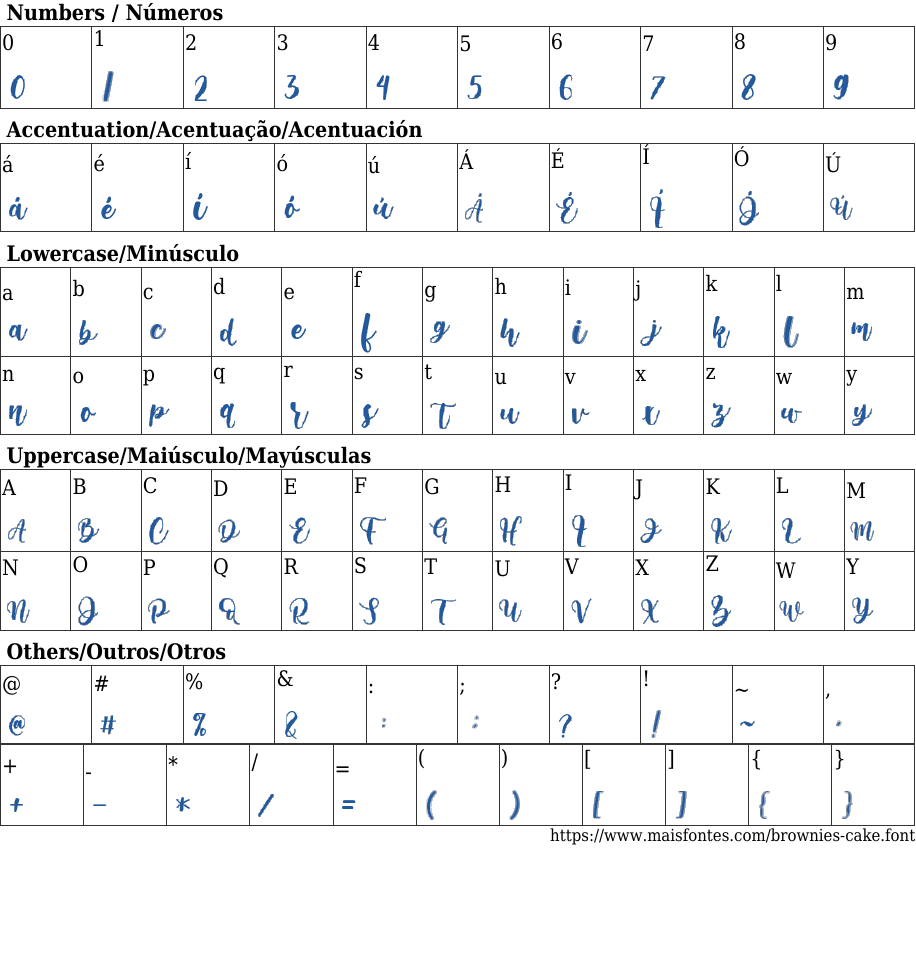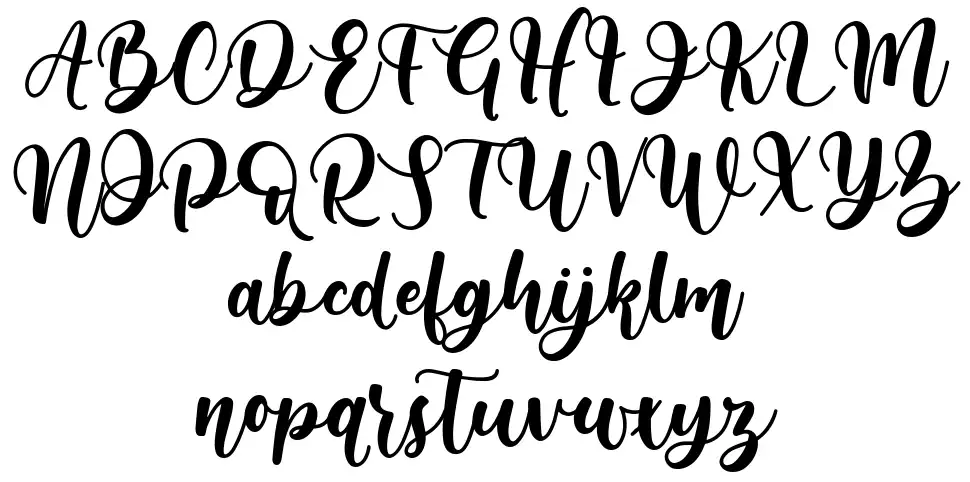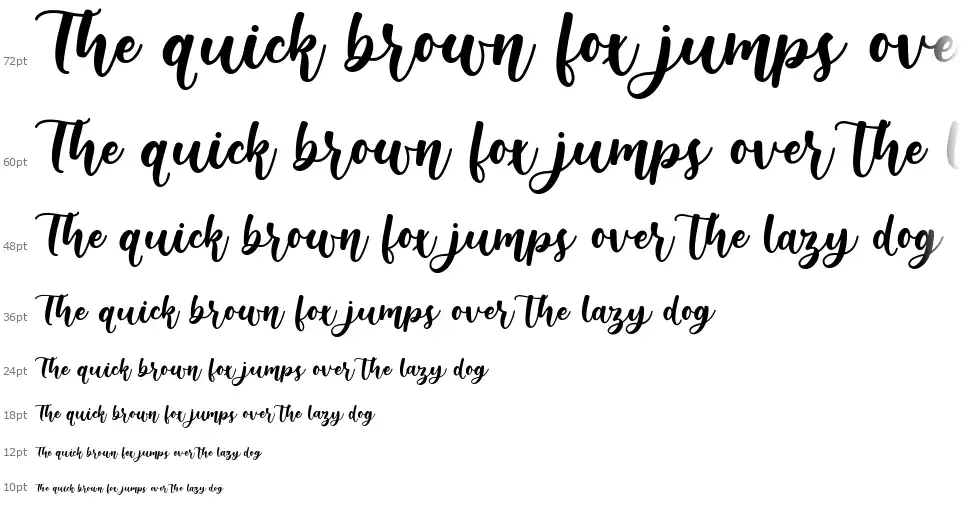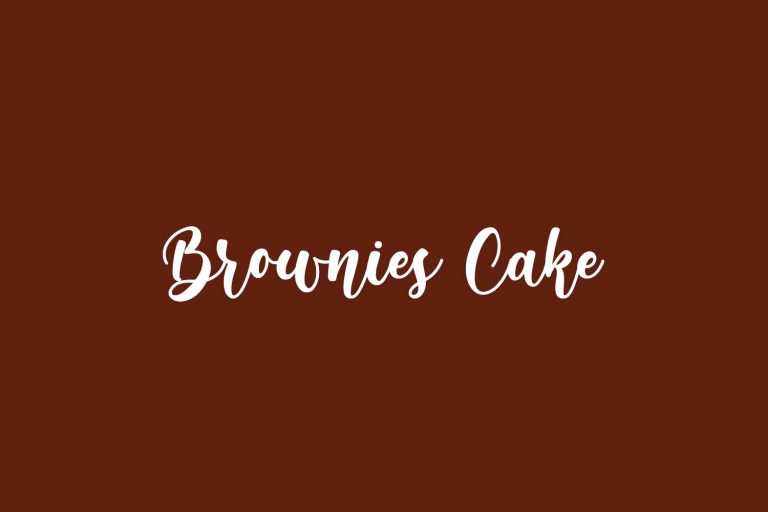
brownies cake Font Download Free for Desktop & font Brownies Cake Regular Font Free Download It's super cute and loaded with decorative charm, making it a sweet choice for anything related to kids. Brownie cake is licensed under the 1001fonts free for personal use license (ffp) Brownies cake font free download. Download and install the brownie cake font by letterpen. The brownie cake font has been downloaded 7,446 times. ️ this font has been downloaded. Brownies Cake Regular Font Free Download.
Brownies Cake Font FontMagic Brownies Cake Regular Font Free Download The brownie cake font has been downloaded 7,446 times. Brownies is the font that's like a batch of freshly baked, adorable treats for your text! Brownies cake font free download. Contains alphabet letters and numbers, view font details, character map, customize font and download font. Download and install the brownie cake font by letterpen. Download and install the brownies cake. Brownies Cake Regular Font Free Download.
Download Brownies font Brownies Cake Regular Font Free Download Contains alphabet letters and numbers, view font details, character map, customize font and download font. ️ this font has been downloaded 10+ times. Brownies cake font free download. Download and install the brownie cake font by letterpen. Brownie cake is licensed under the 1001fonts free for personal use license (ffp) Brownies is the font that's. Brownies Cake Regular Font Free Download.